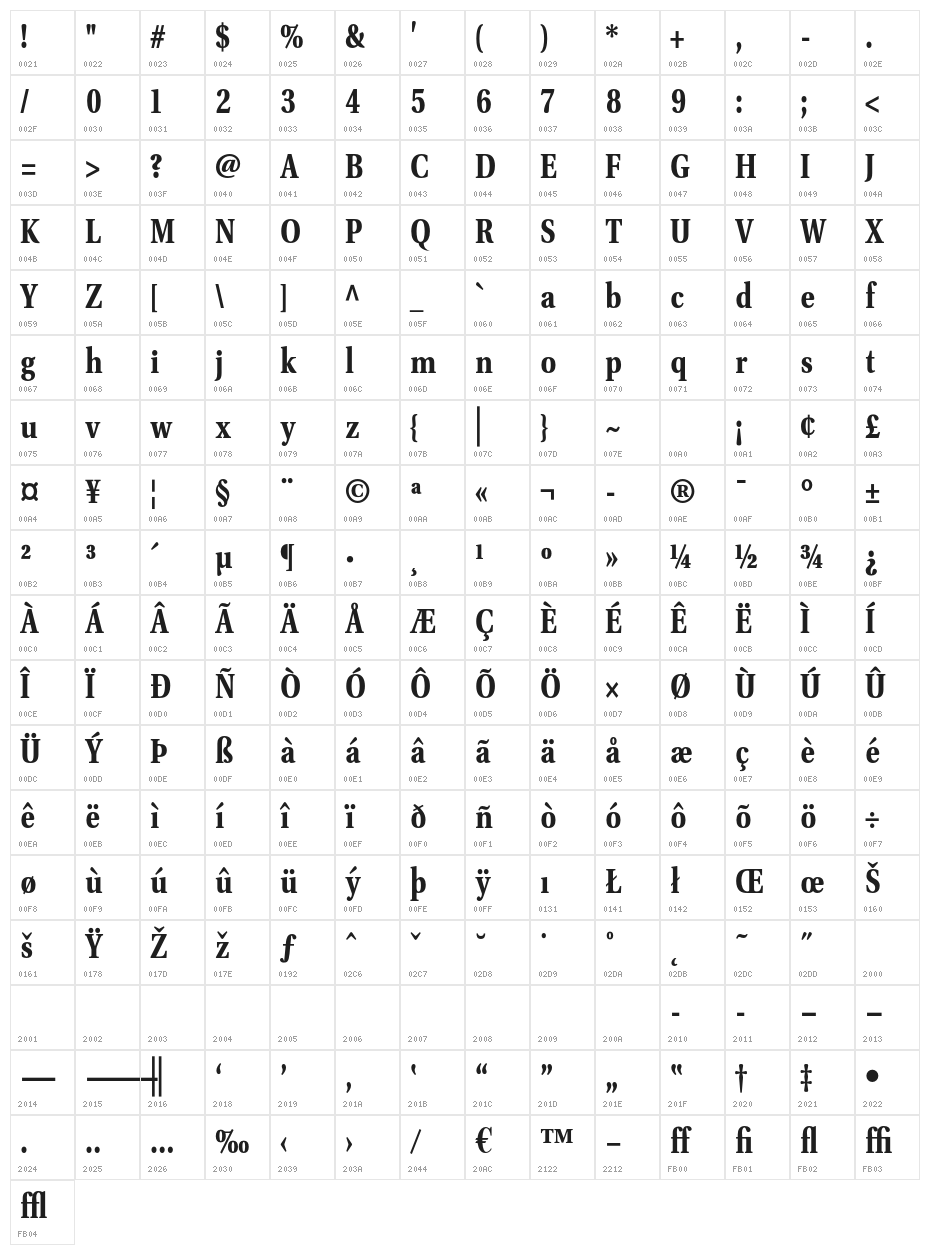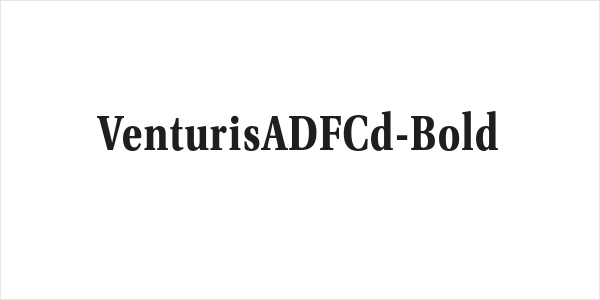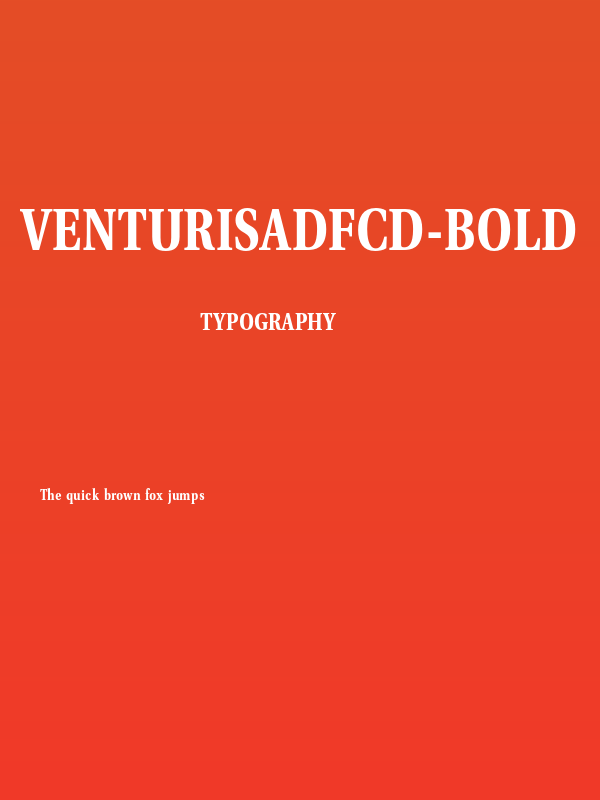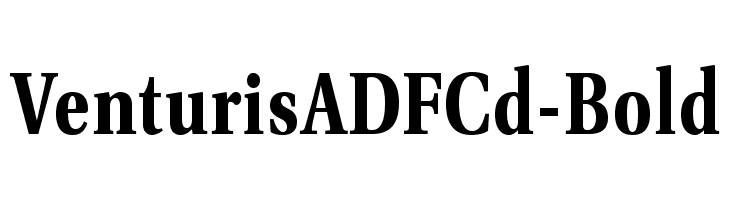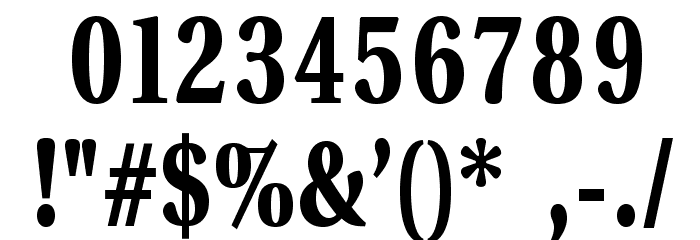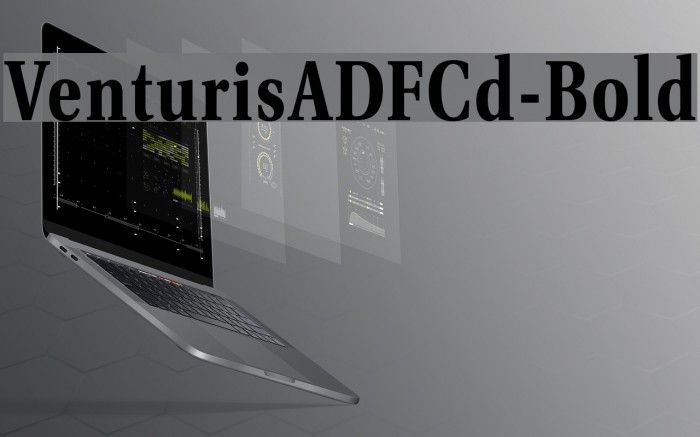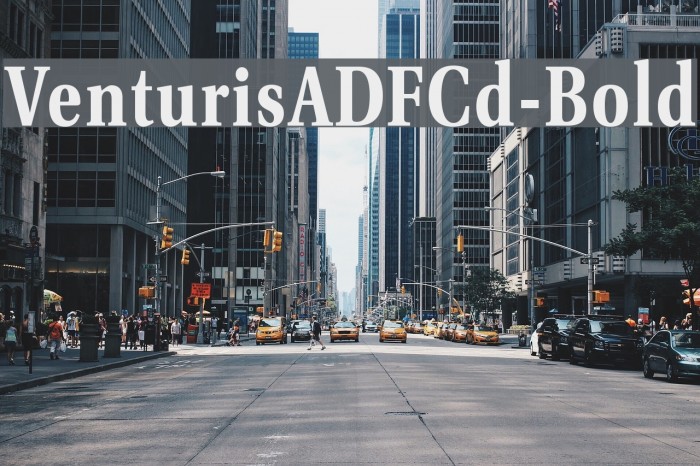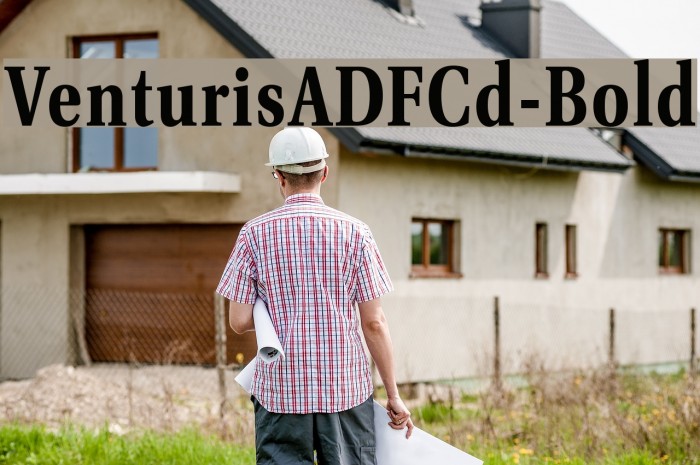
VenturisADFCd-Bold Font
VenturisADFCd-Bold Description
This font exhibits a bold and authoritative presence with its strong, thick strokes and classic serif detailing. The uppercase letters are robust and commanding, while the lowercase characters maintain a harmonious balance with slightly rounded edges. The numerals are clear and easily distinguishable, making them suitable for various applications. Special characters are well-defined, adding versatility to the font's usage. The overall design is reminiscent of traditional serif fonts, yet it carries a modern twist with its bold weight, making it ideal for impactful headlines and titles.
| Overall Style | Classic |
| Proposed Projects | Ideal for editorial design, book covers, branding, and advertising where a strong, authoritative presence is needed. |